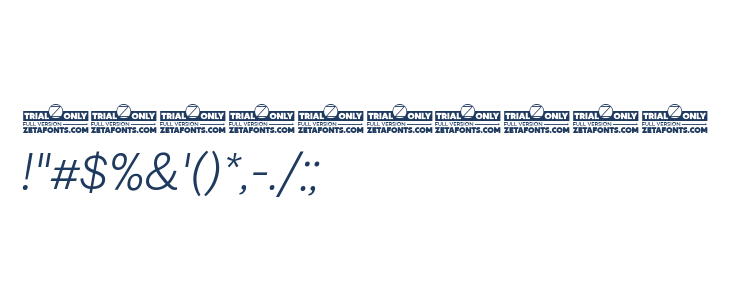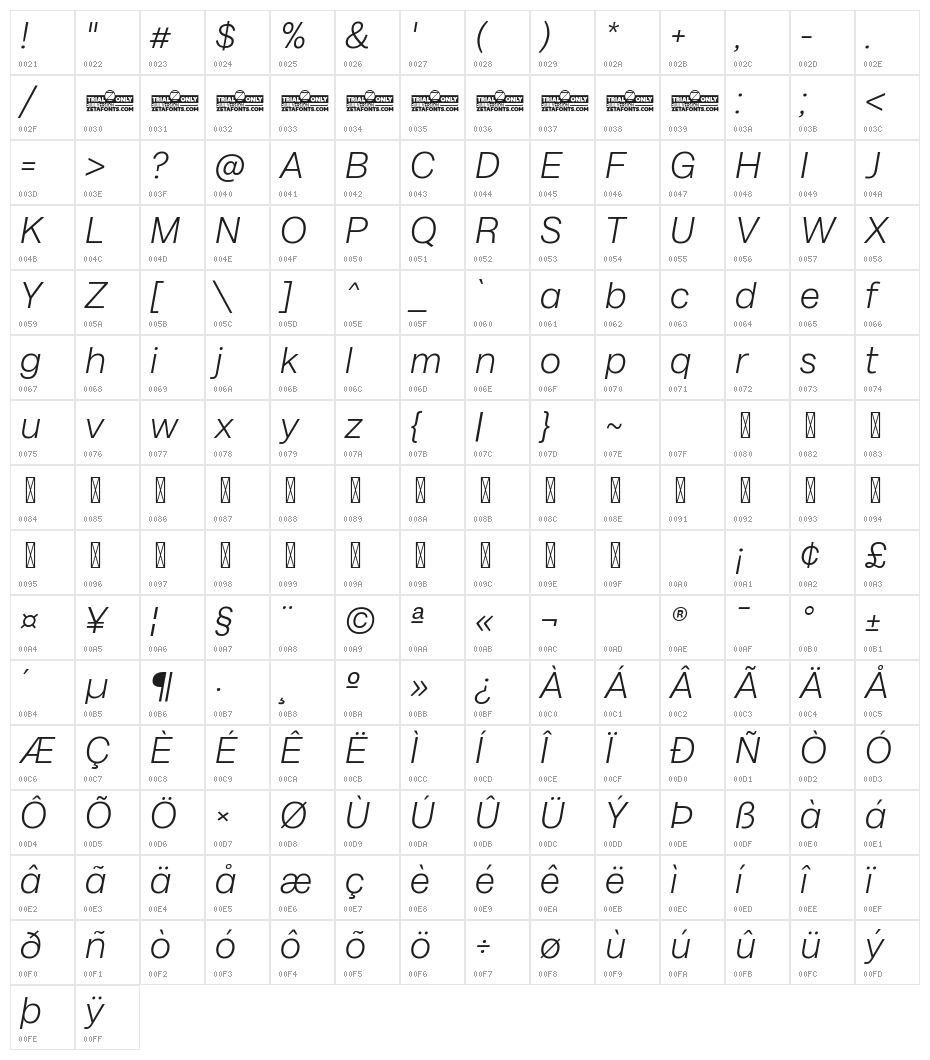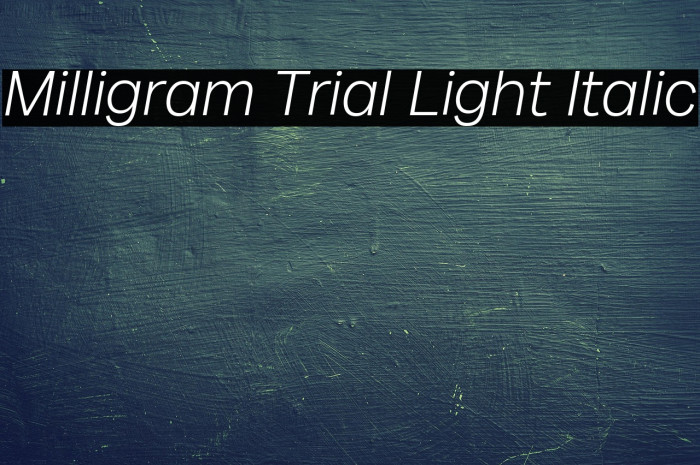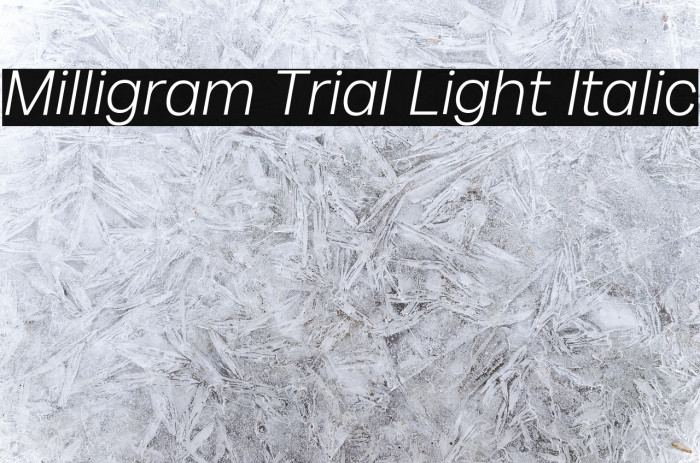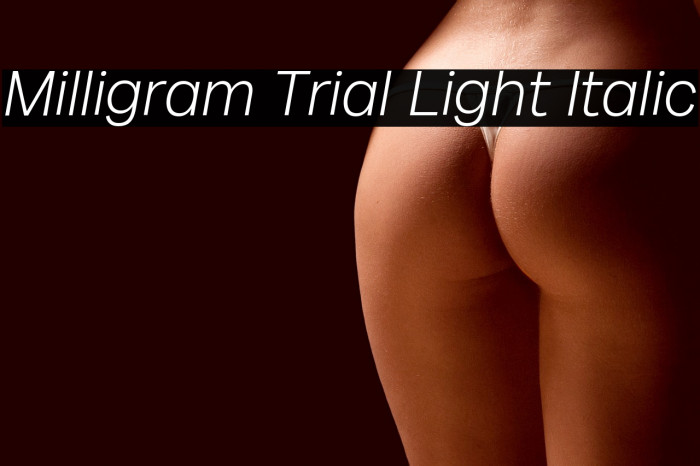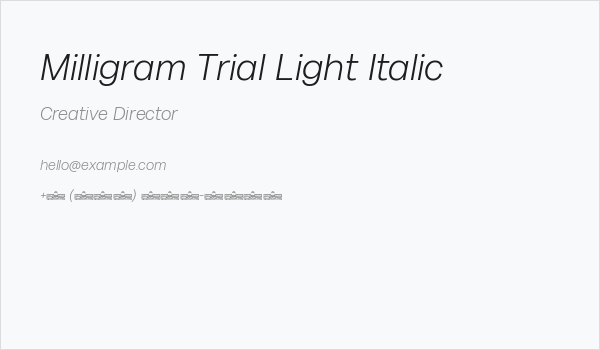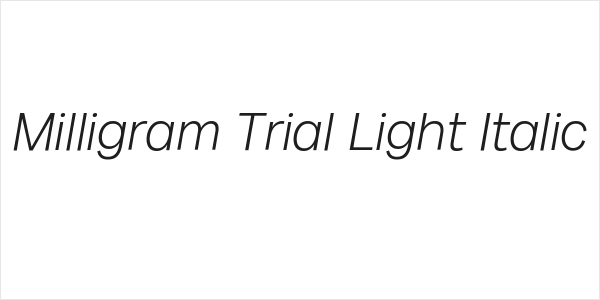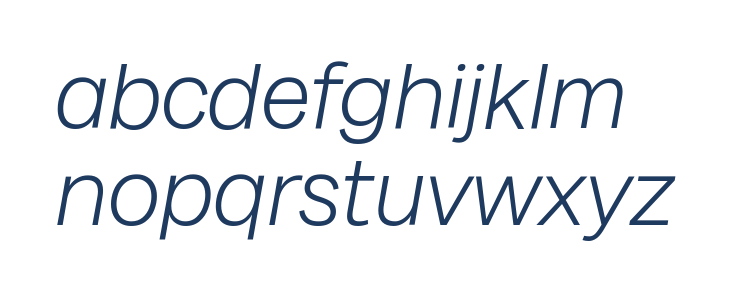
Milligram Trial Light Italic Font
Milligram Trial Light Italic Description
This font features a sleek and modern design with a light weight and italic style. The characters are elegantly slanted, providing a sense of motion and sophistication. The sans-serif design ensures clarity and readability, making it suitable for various digital and print applications. The spacing between characters is normal, allowing for easy reading without feeling cramped. The font's low contrast in stroke thickness contributes to its clean and minimalist appearance, ideal for contemporary design projects.
| Proposed Projects | Ideal for modern branding, digital interfaces, minimalist print materials, and stylish editorial layouts. |